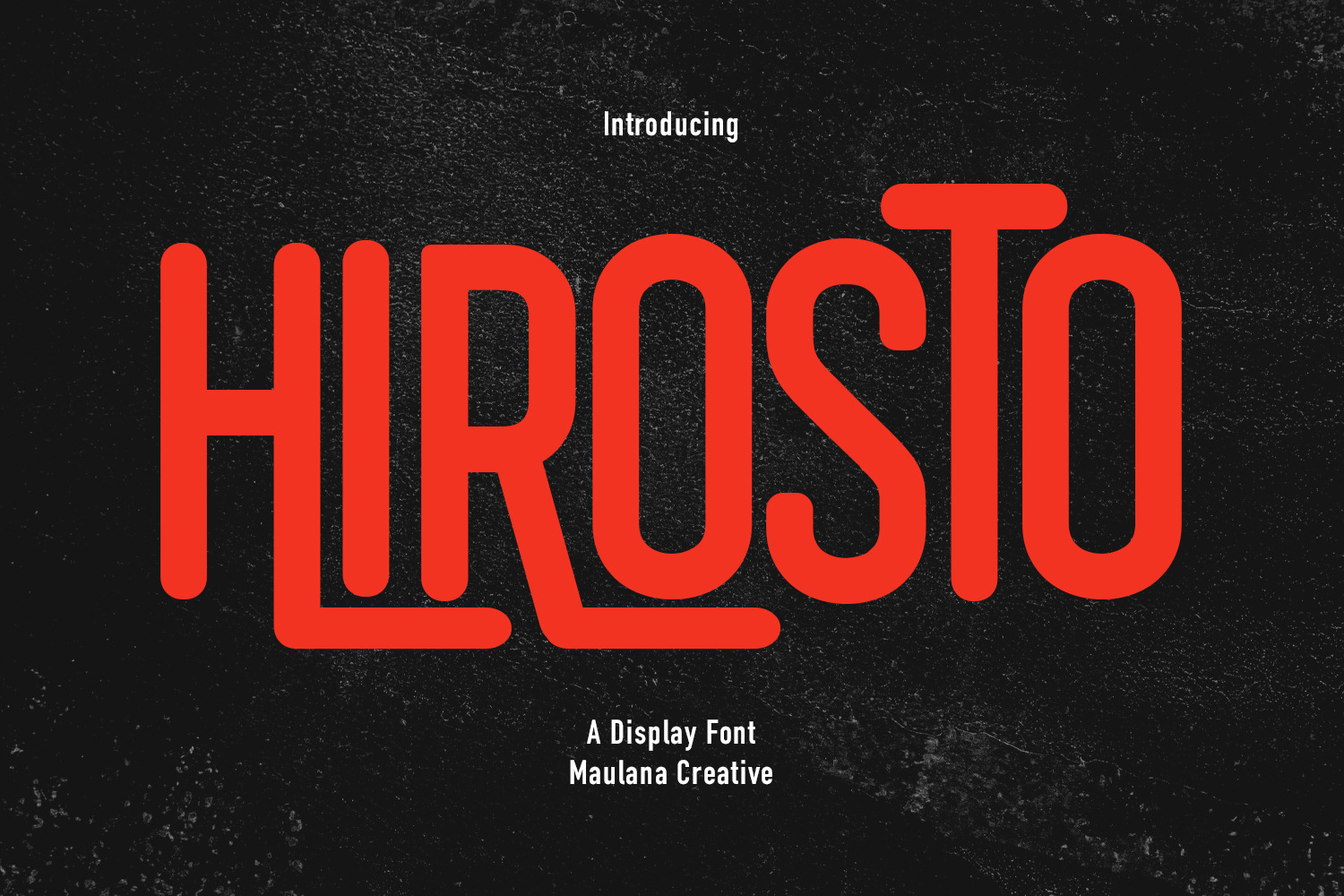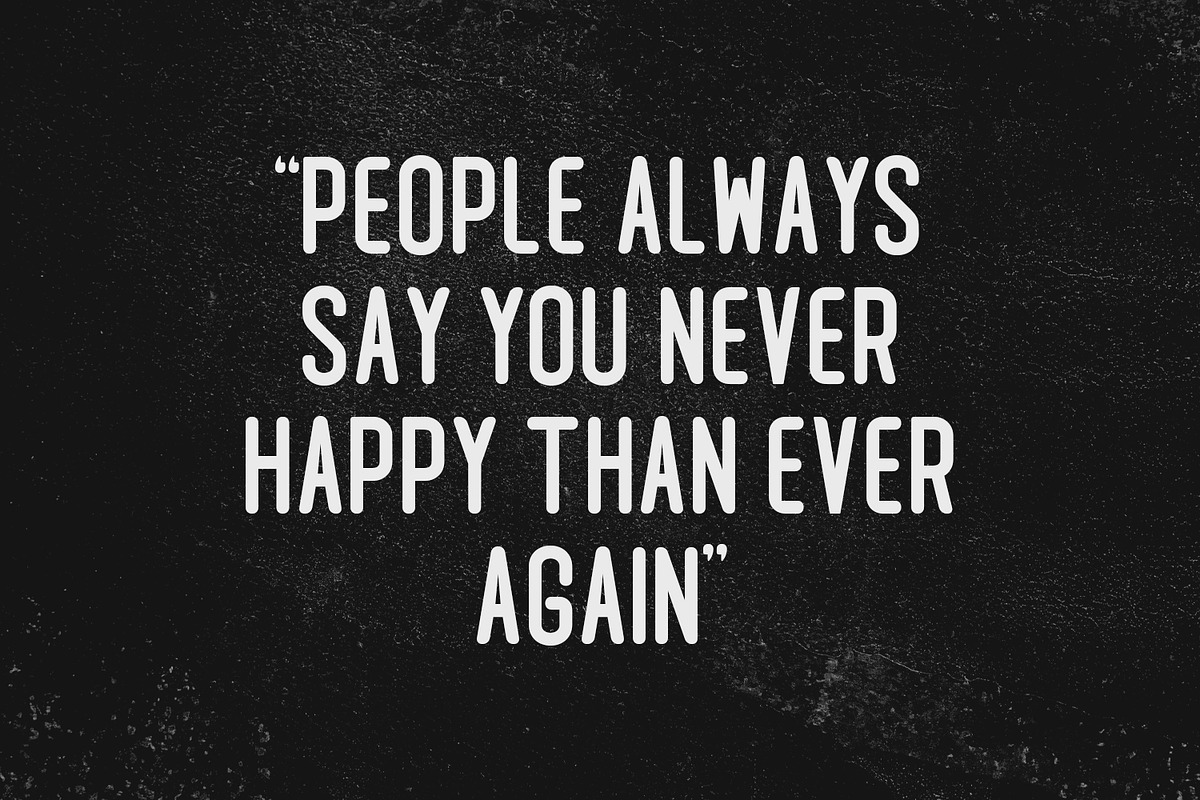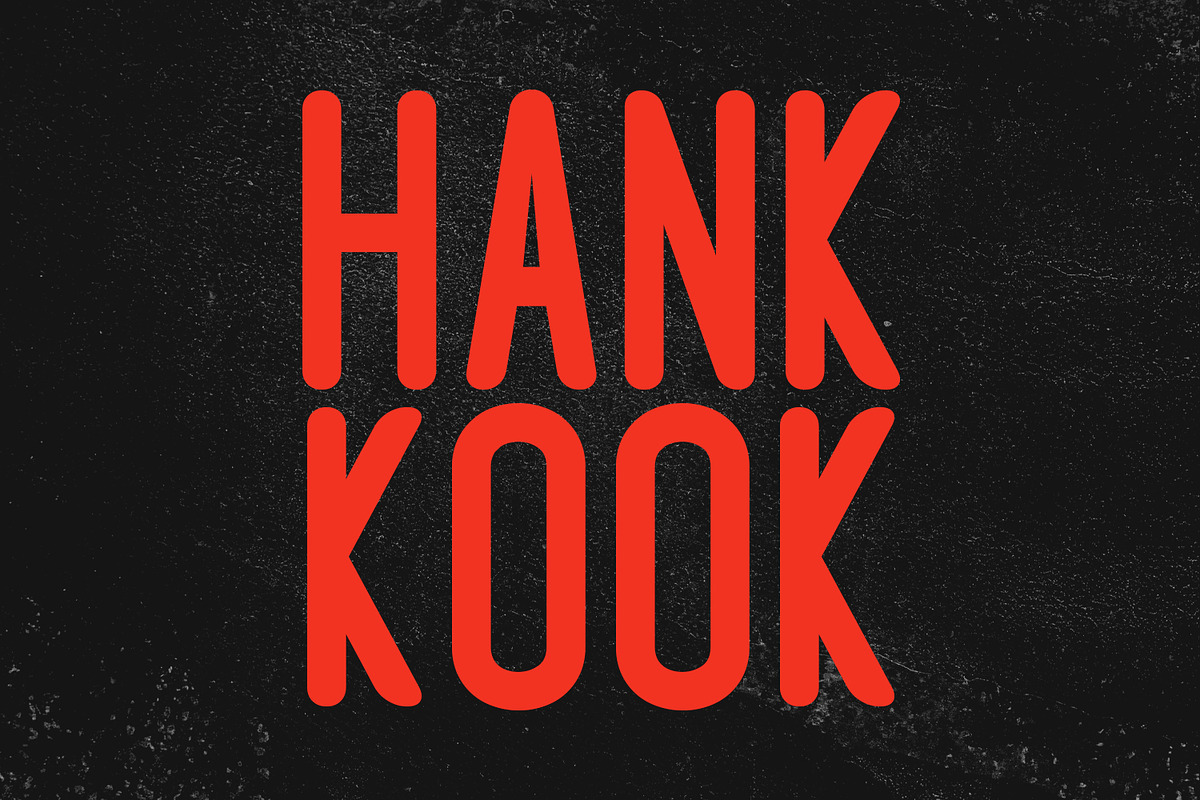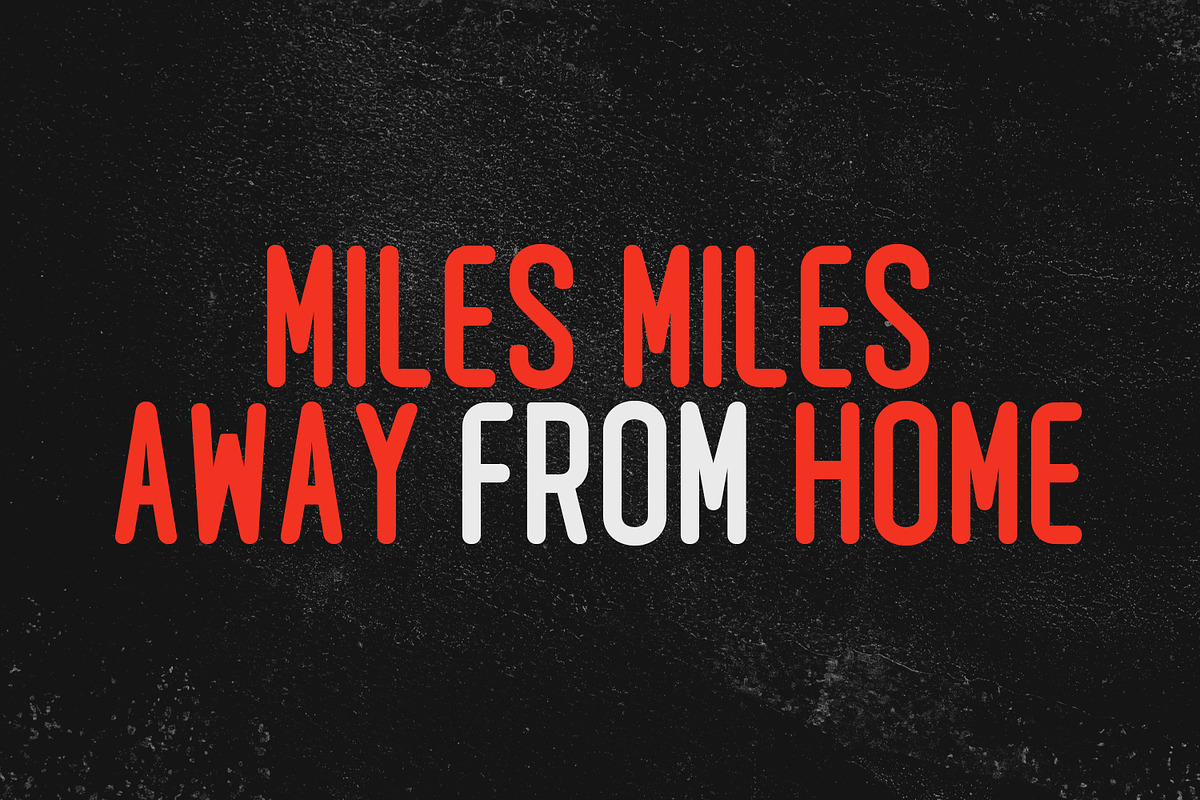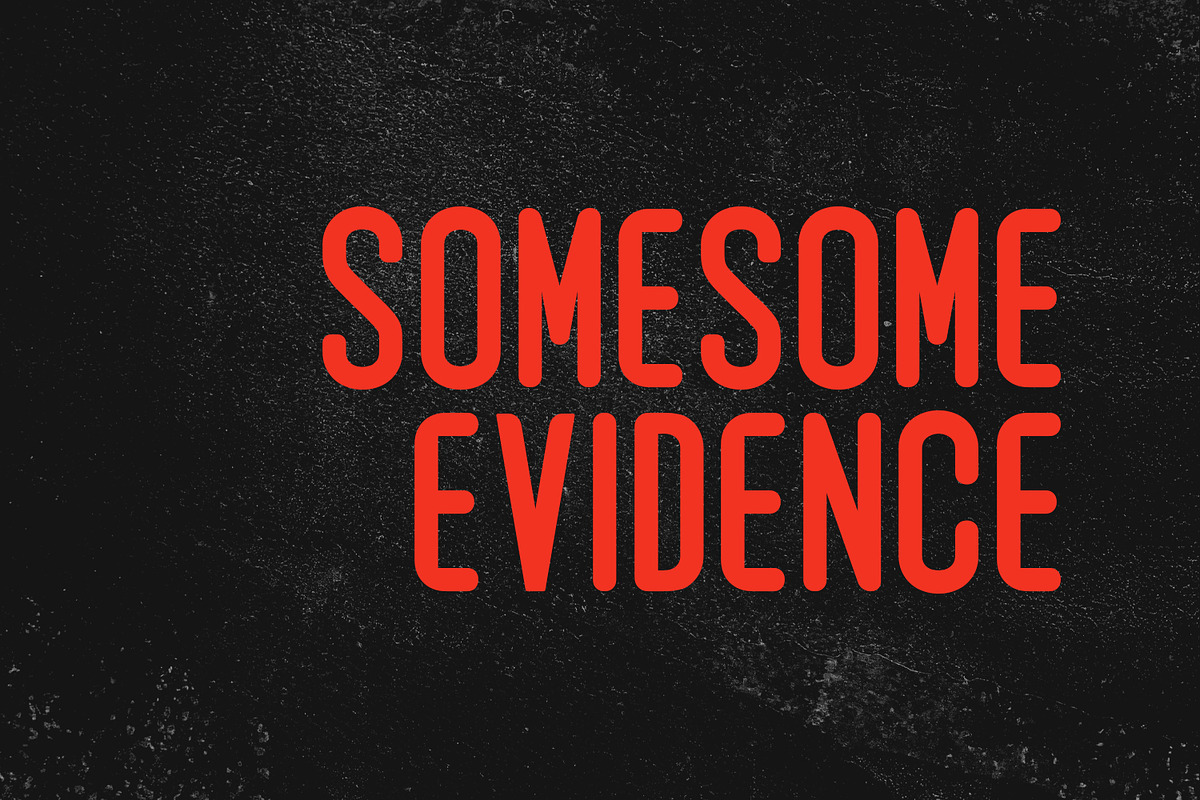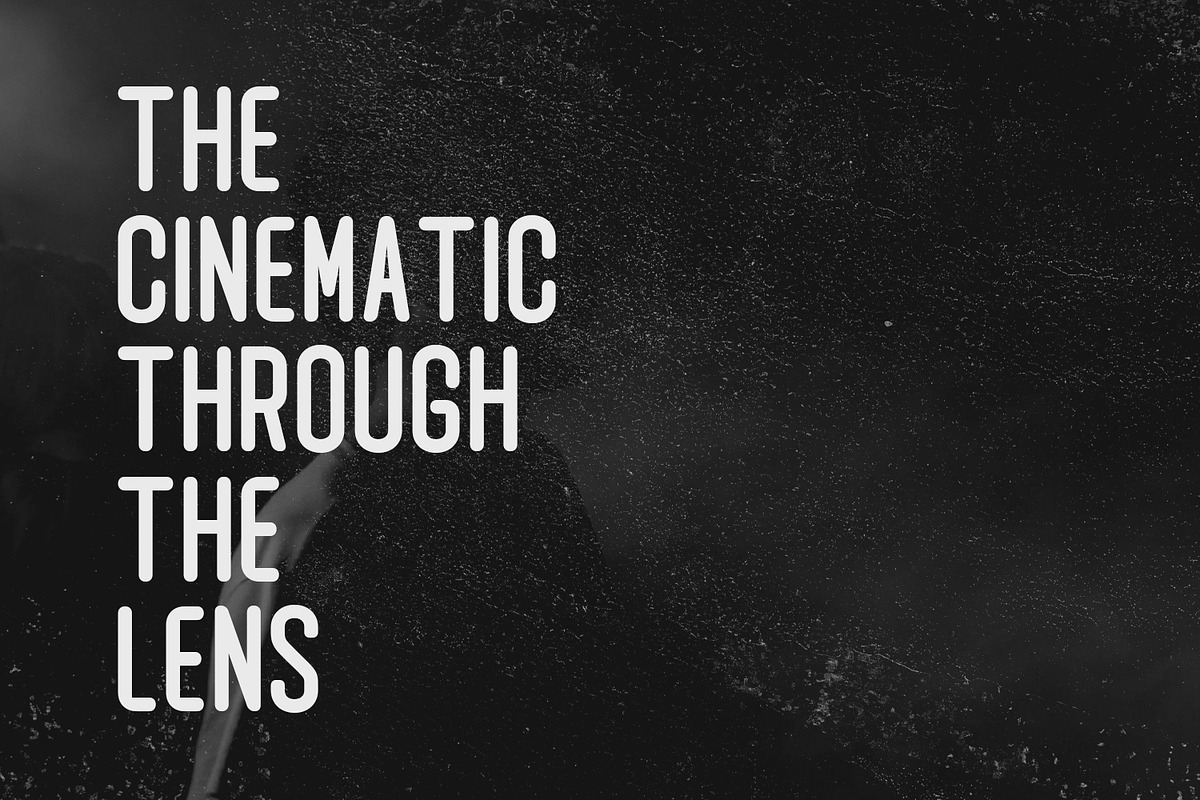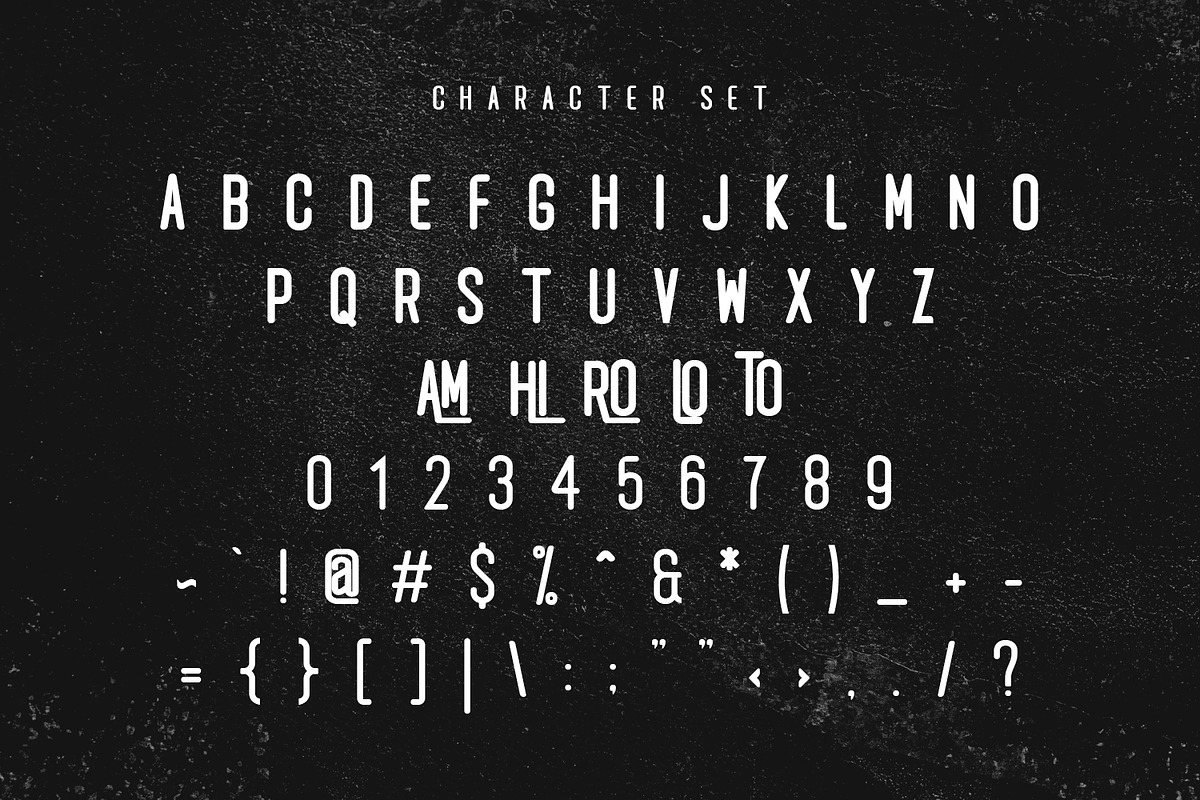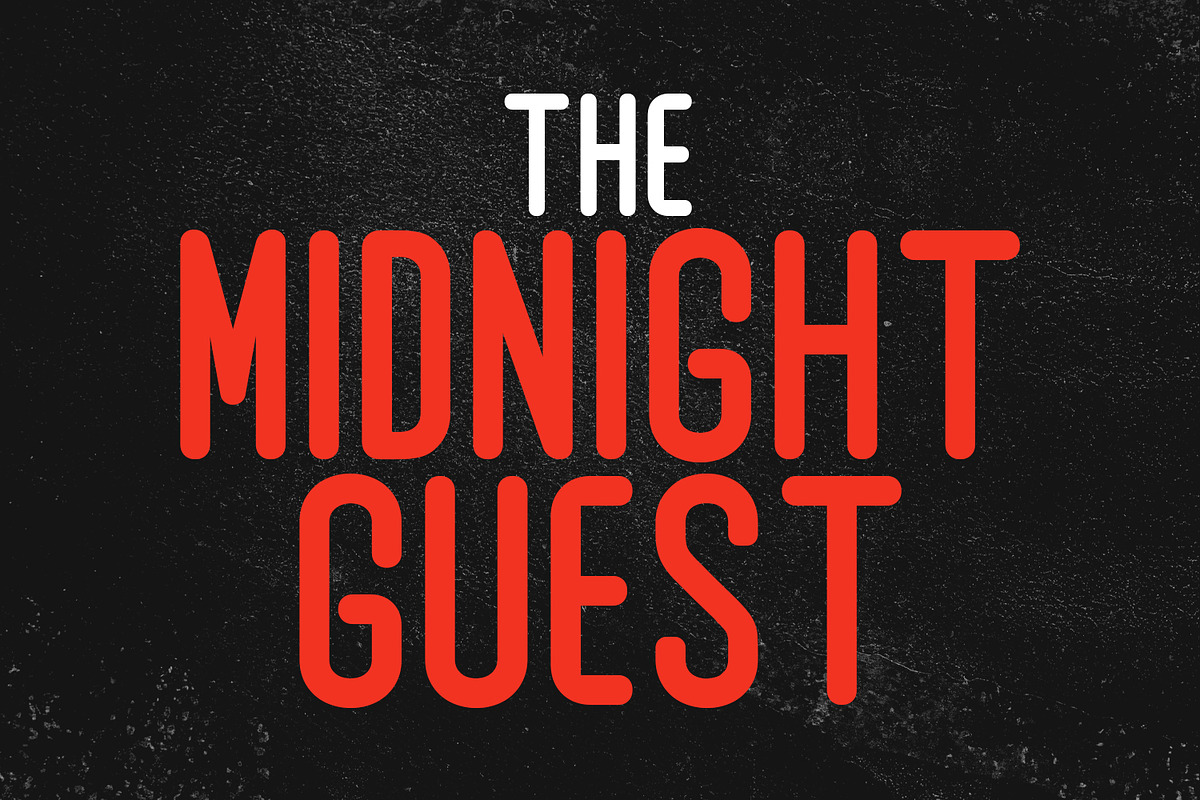
Hirosto Display Font
Hirosto is a display font. With bold tall and sharp stroke, fun character with a bit of ligatures and alternates. To give you an extra creative work. Hirosto font support multilingual more than 100+ language. This font is good for logo design, Social media, Movie Titles, Books Titles, a short text even a long text letter and good for your secondary text font with sans or serif. Make a stunning work with Hirosto font.